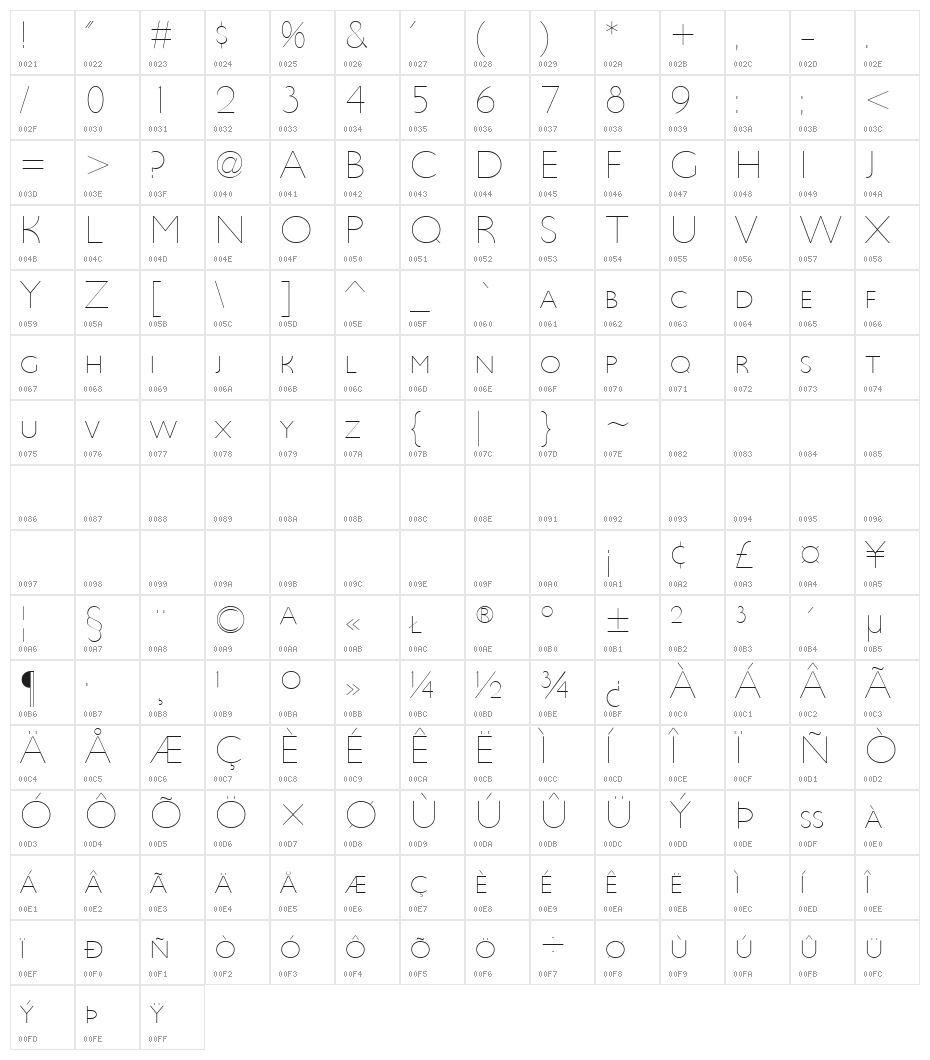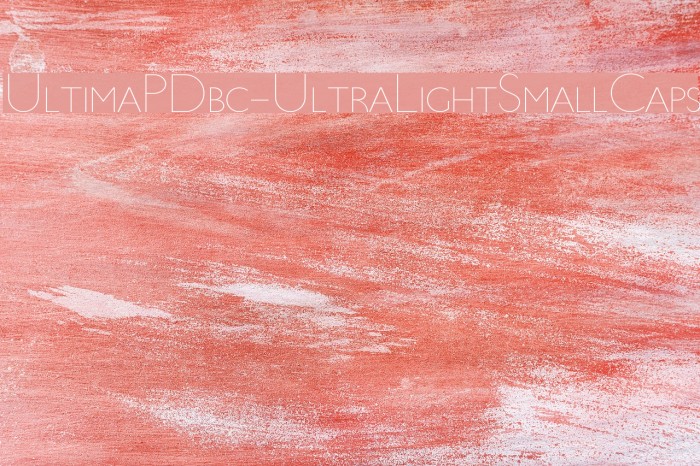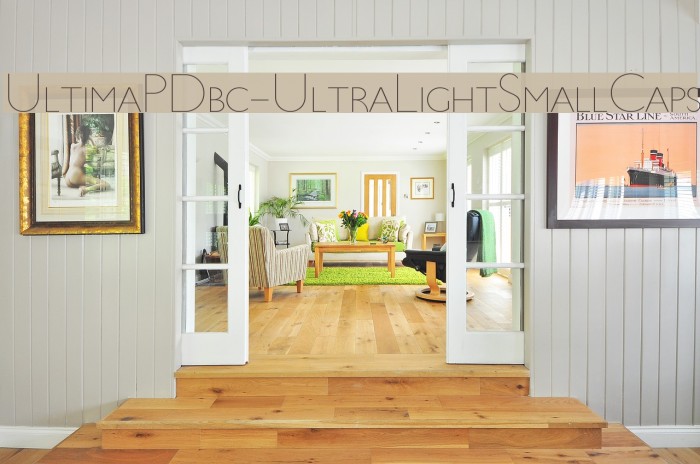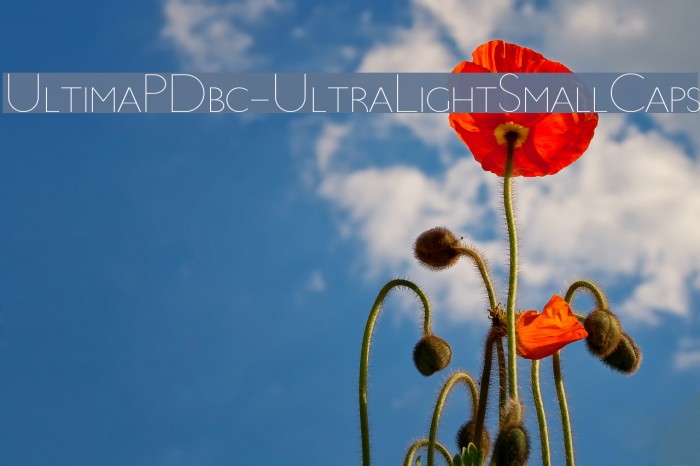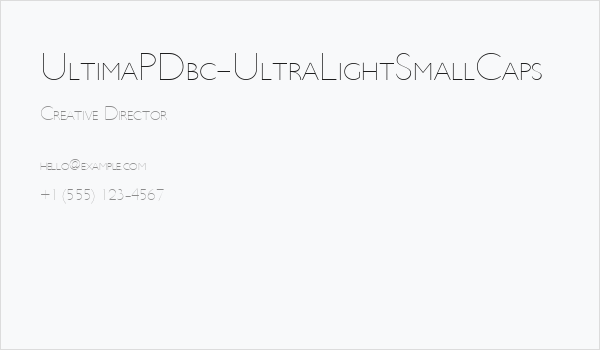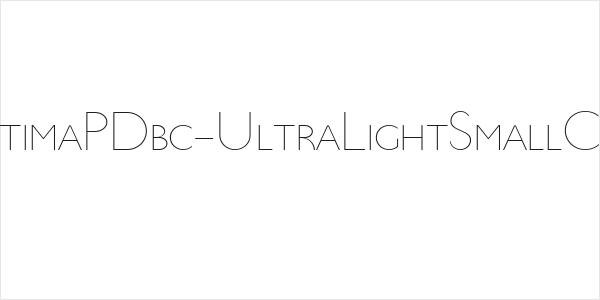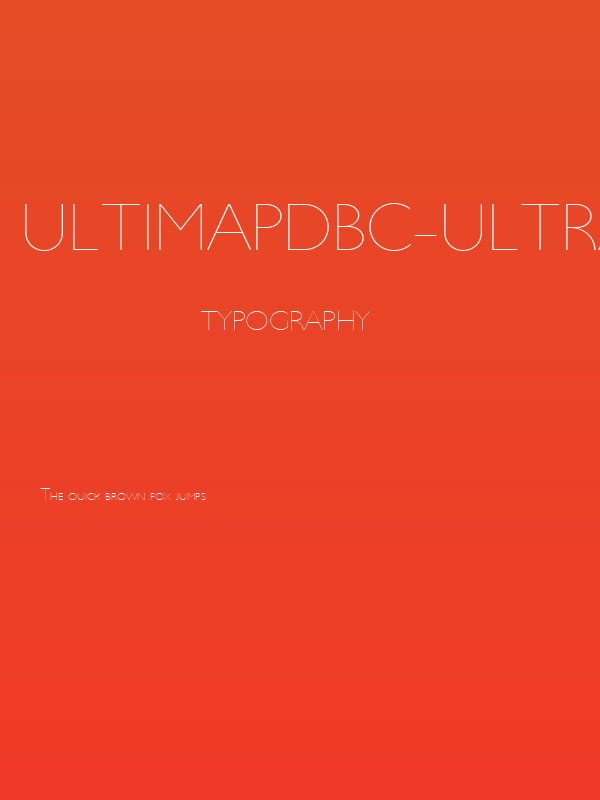
UltimaPDbc-UltraLightSmallCaps Font
UltimaPDbc-UltraLightSmallCaps Description
This font features a sleek and ultra-light design, characterized by its thin strokes and modern aesthetic. The uppercase letters are elegantly crafted with a geometric influence, providing a clean and minimalist appearance. The numerals and special characters maintain this streamlined look, ensuring consistency across all glyphs. Its simplicity and clarity make it suitable for contemporary design projects where a subtle yet sophisticated typeface is desired.
| Proposed Projects | Ideal for modern branding, minimalist posters, elegant invitations, and clean web design. |